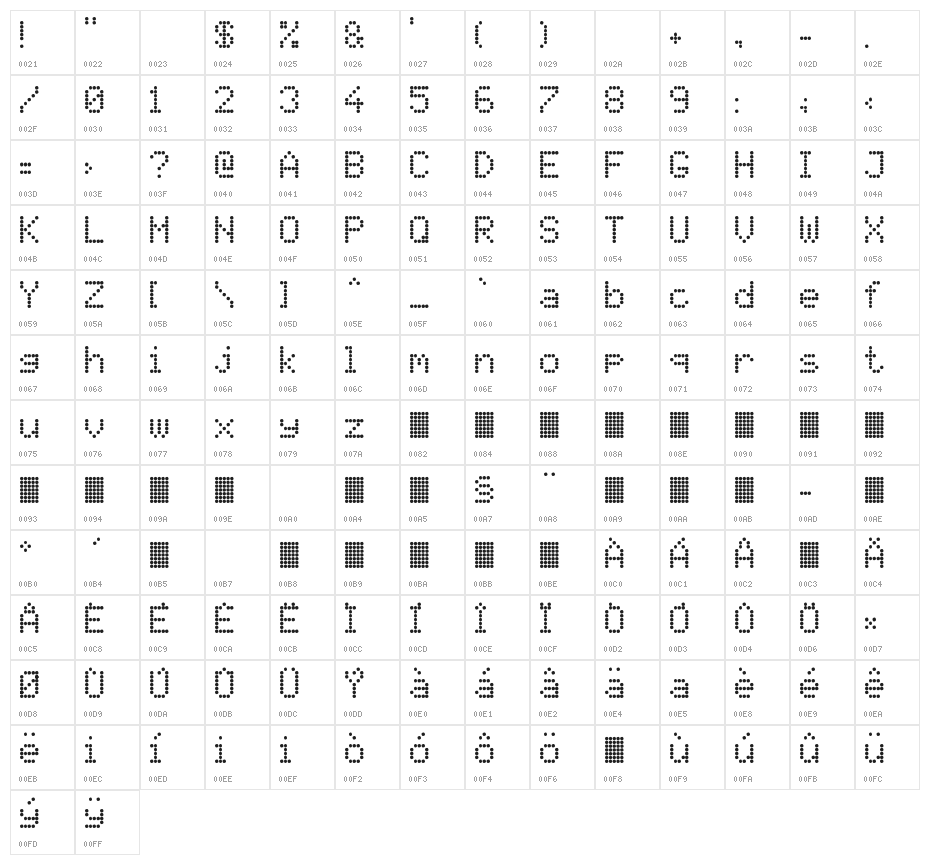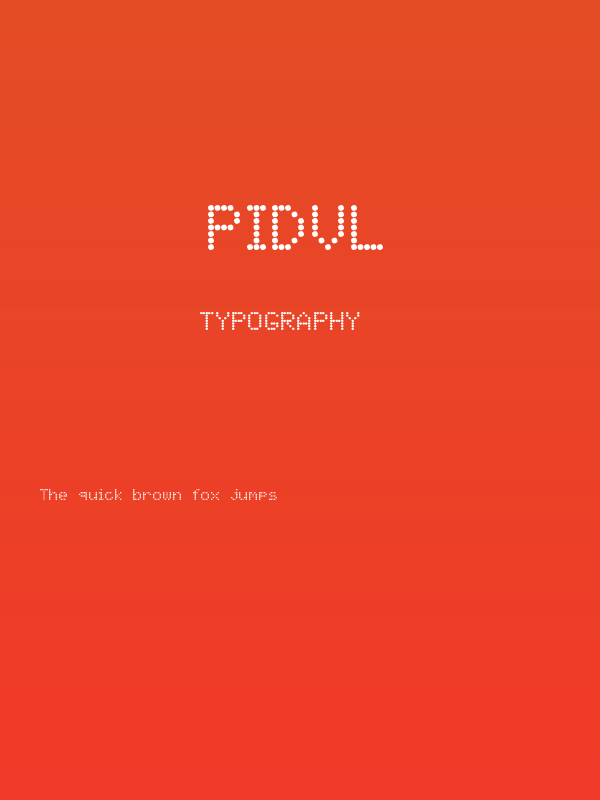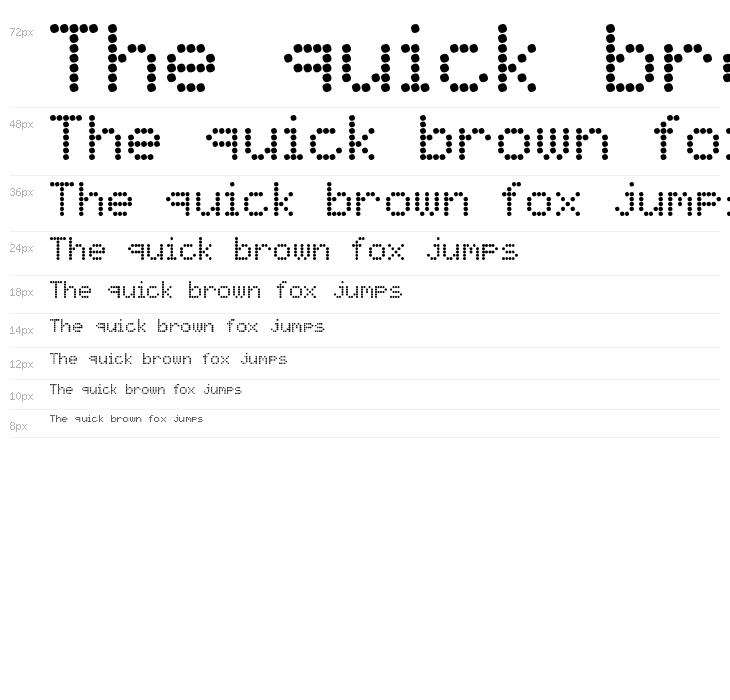
PIDvl Font
PIDvl Description
This font is a unique and playful typeface composed entirely of dots, creating a digital and modern aesthetic. Each character is formed by a series of evenly spaced dots, giving it a pixelated appearance reminiscent of early digital displays or dot matrix printers. The uniformity of the dots provides a consistent texture across all characters, while the spacing between the dots ensures legibility. This font is particularly eye-catching and can add a retro or tech-inspired feel to any design project. Its distinctive style makes it suitable for creative and unconventional uses, where a standard font might not suffice.
| Proposed Projects | Ideal for digital art, tech-themed posters, retro video game designs, and creative branding projects. |